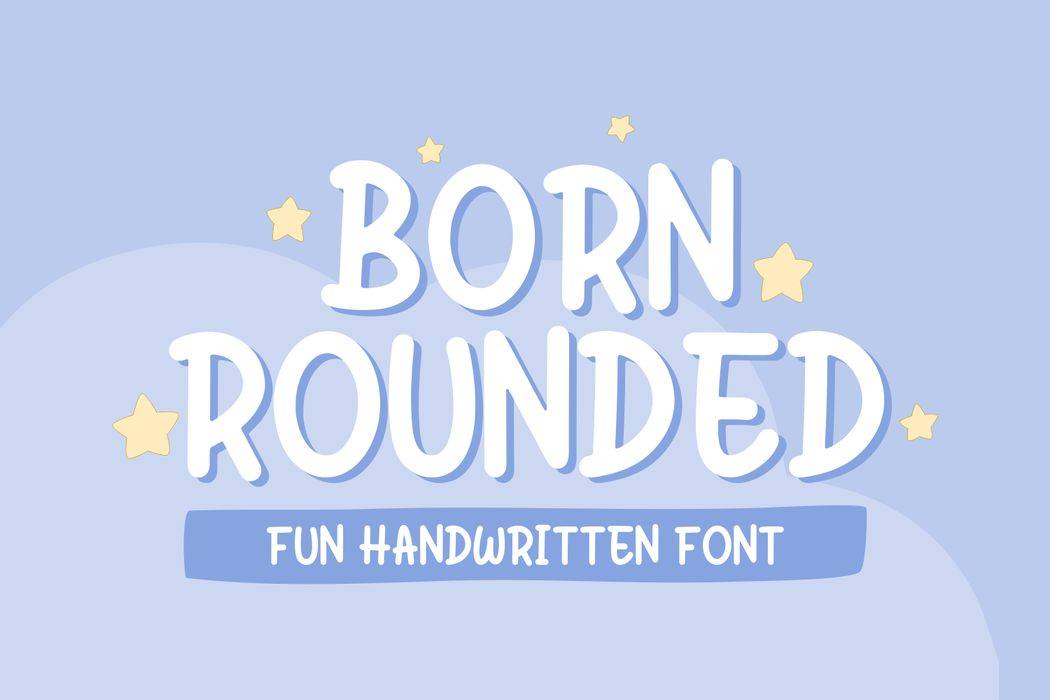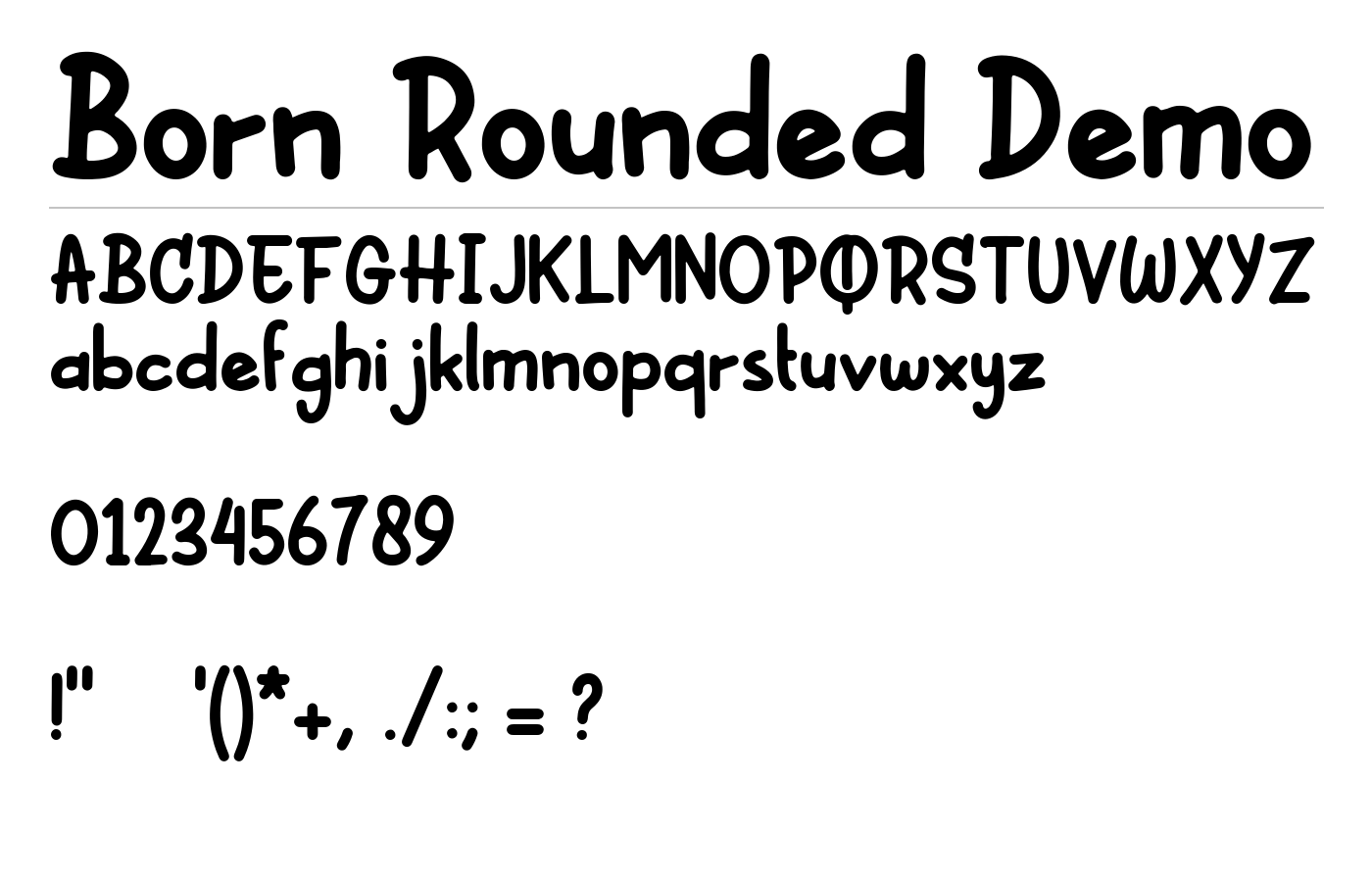
Born Rounded is a playful sans serif font with soft, rounded edges and a casual handwritten feel, making it friendly and approachable. Its upright, slightly uneven letterforms and medium weight give it a warm, informal personality ideal for children’s materials, creative projects, and branding that seeks a fun, relaxed vibe. This font works well in headlines, logos, and packaging where a cheerful and inviting tone is desired.
Born Rounded Font
About Born Rounded Font